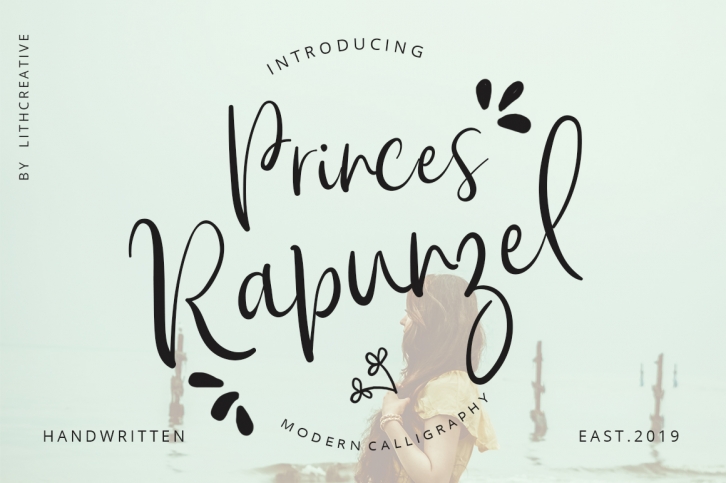
Princes Rapunzel is a great font that was designed by Lyth Creative. Imagine the amount of combinations you can create using this font! The archive is 15.78 MB and it was released on May 23, 2019. Princes Rapunzel looks beautiful on wedding invitations, greeting cards, logos, posters, labels, t-shirt designs, logos, business cards and is perfect for use in ink or watercolor works, fashion, magazines, packaging and food menus, children's books and more!